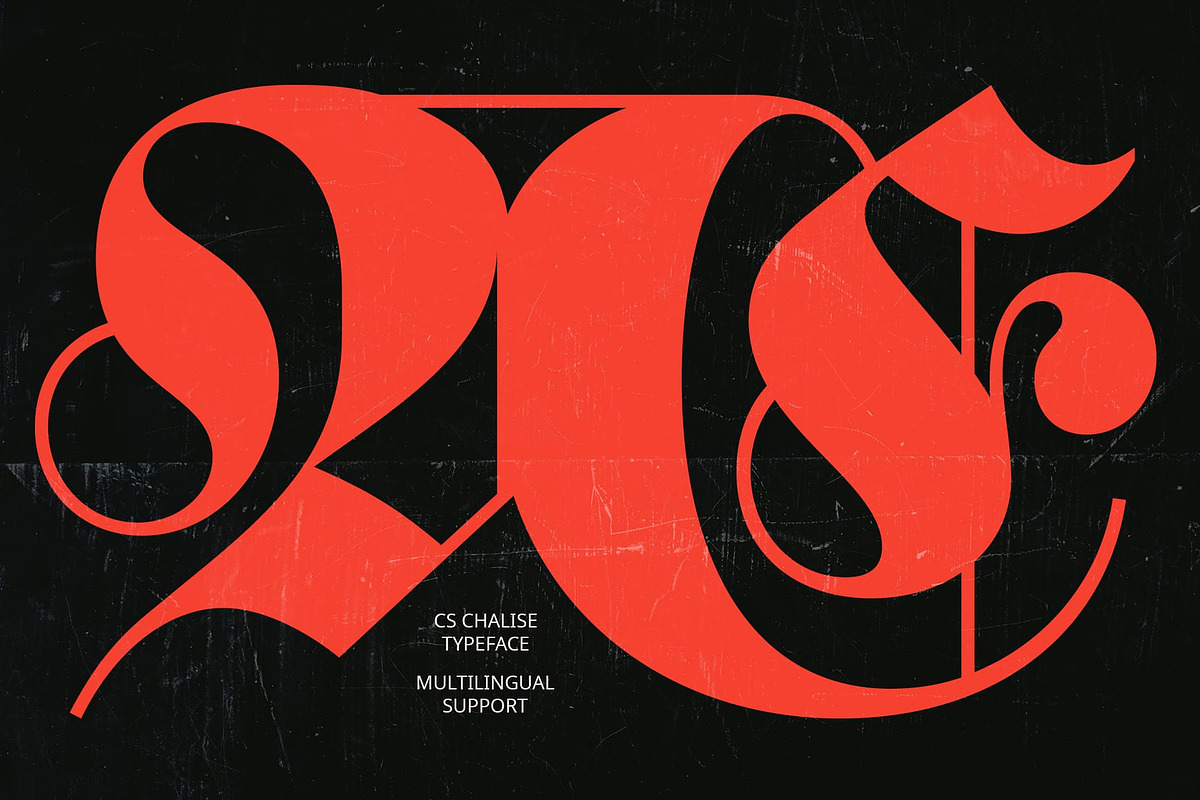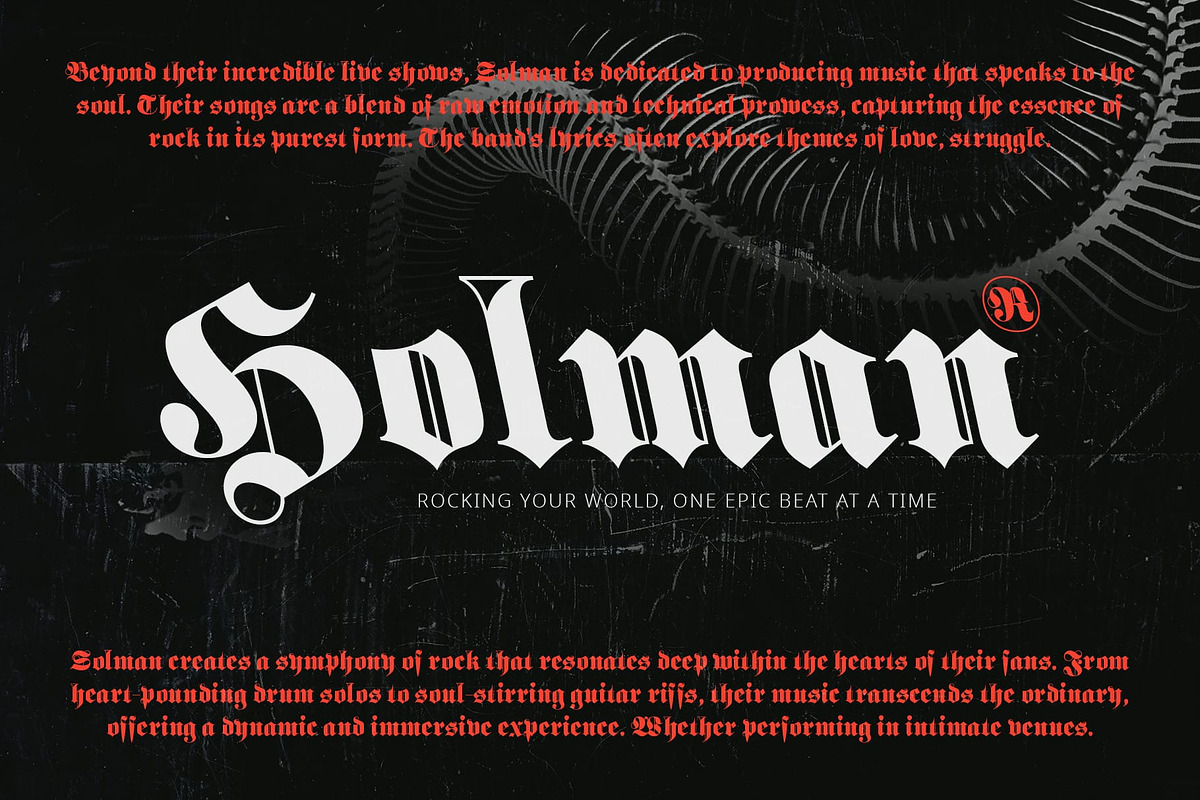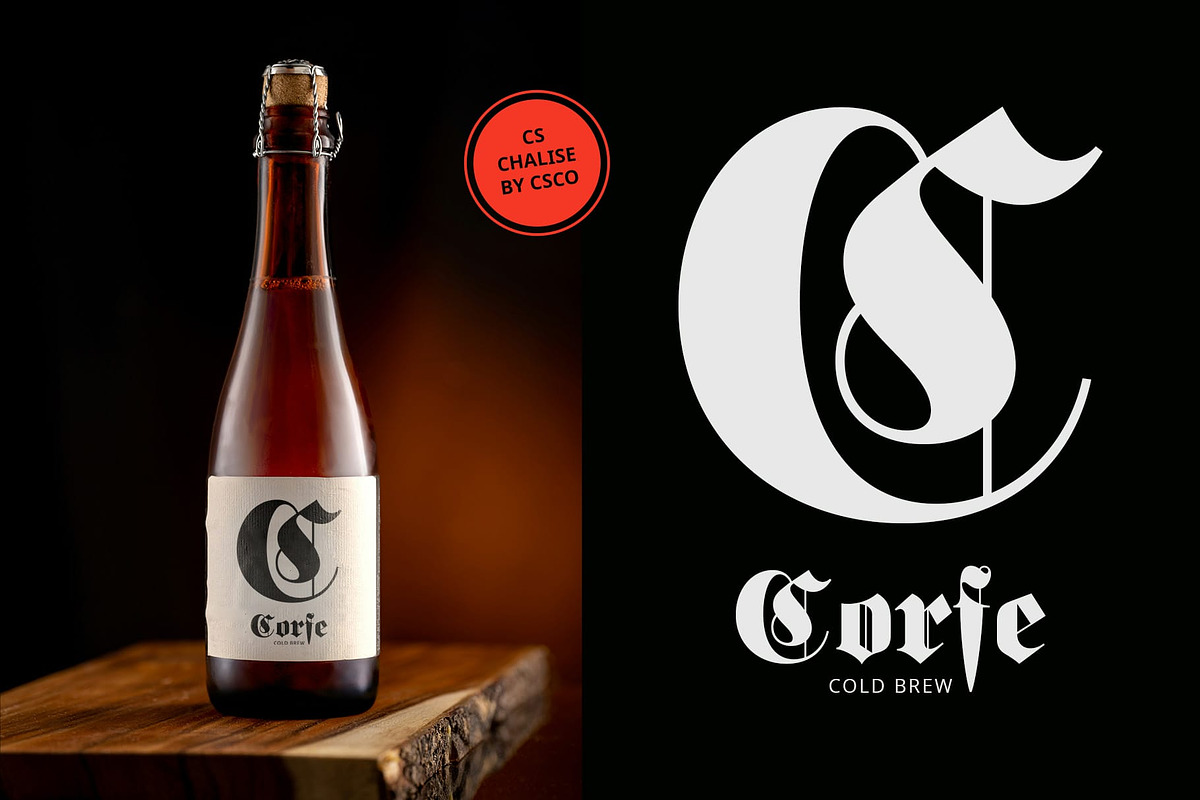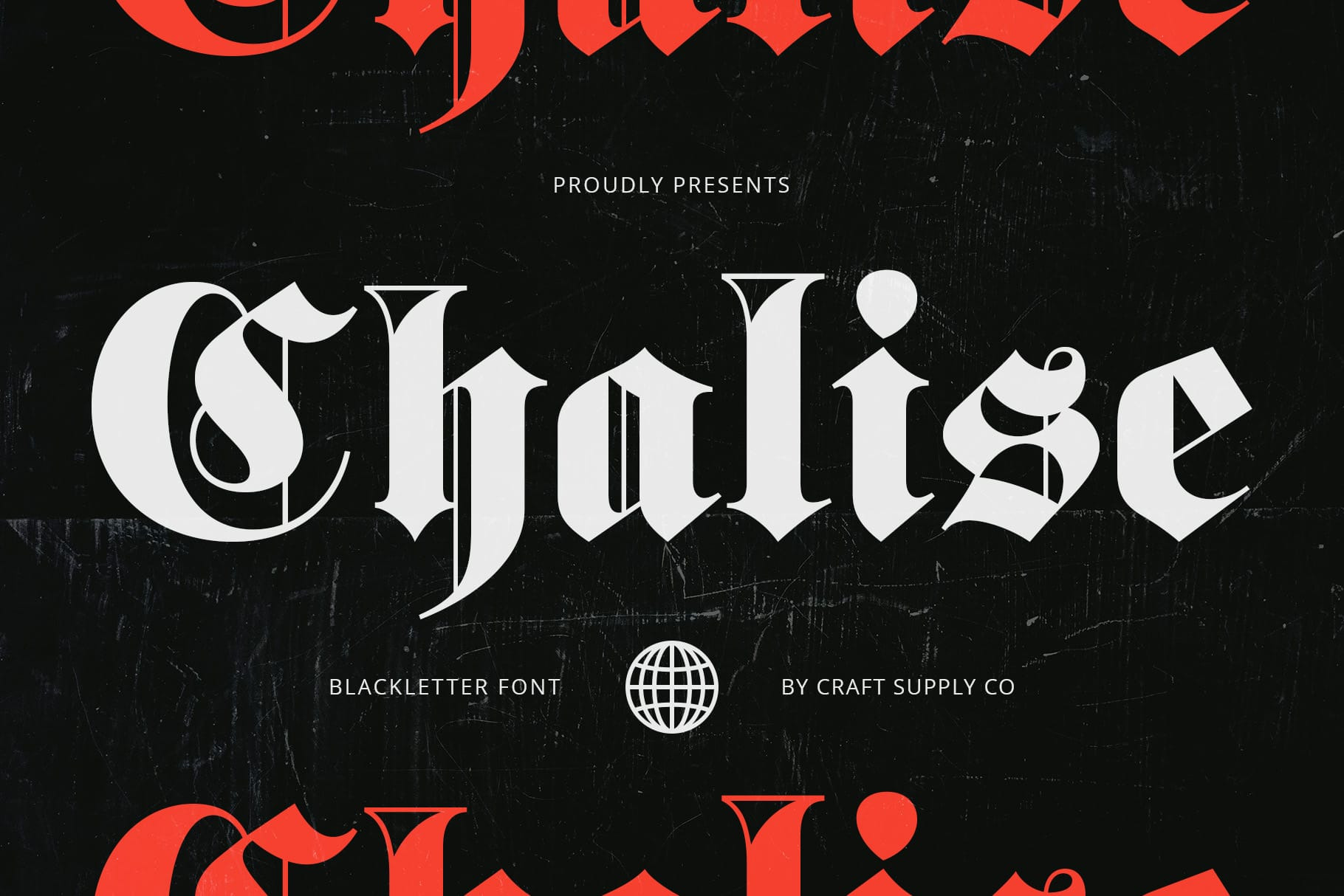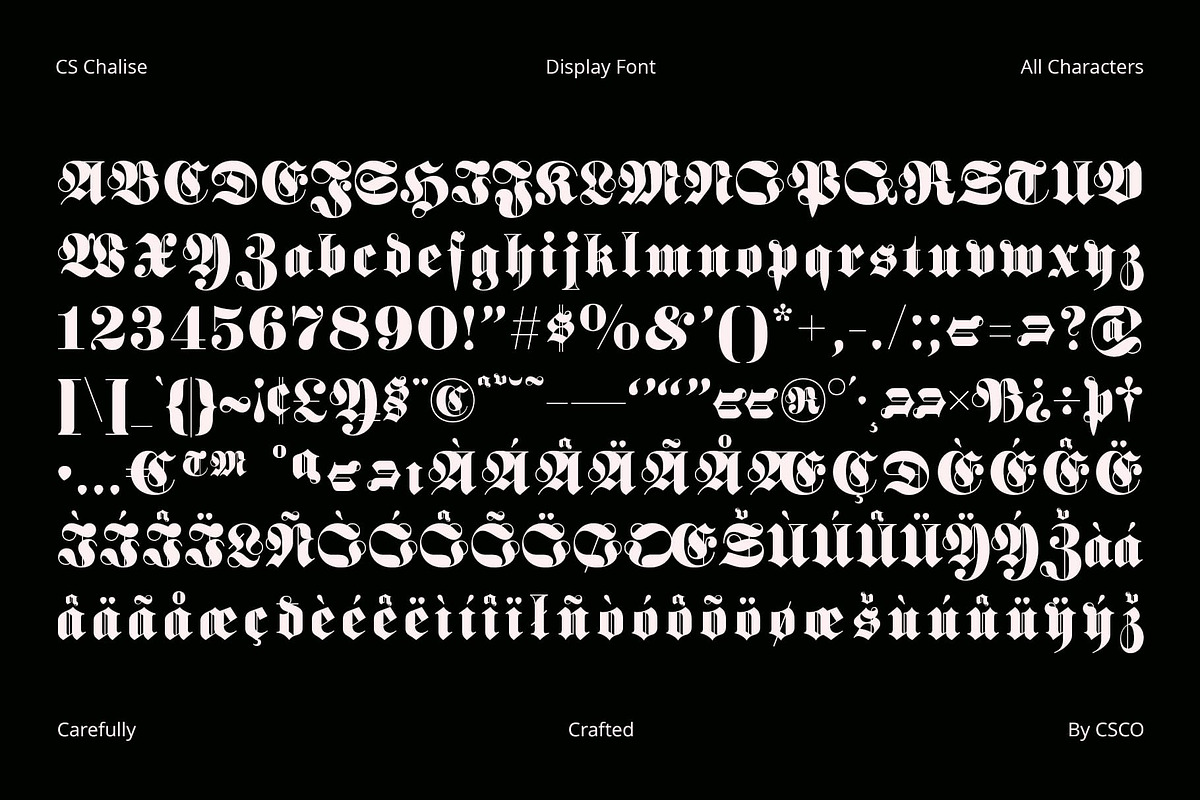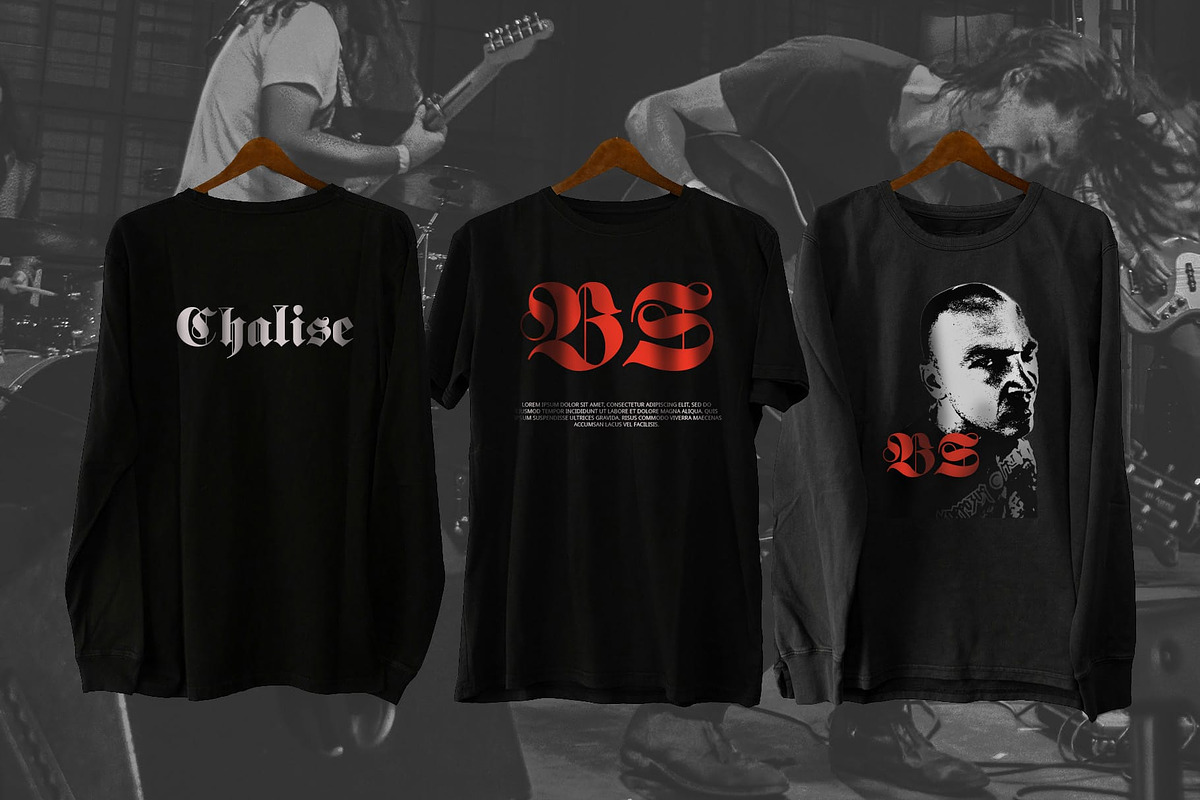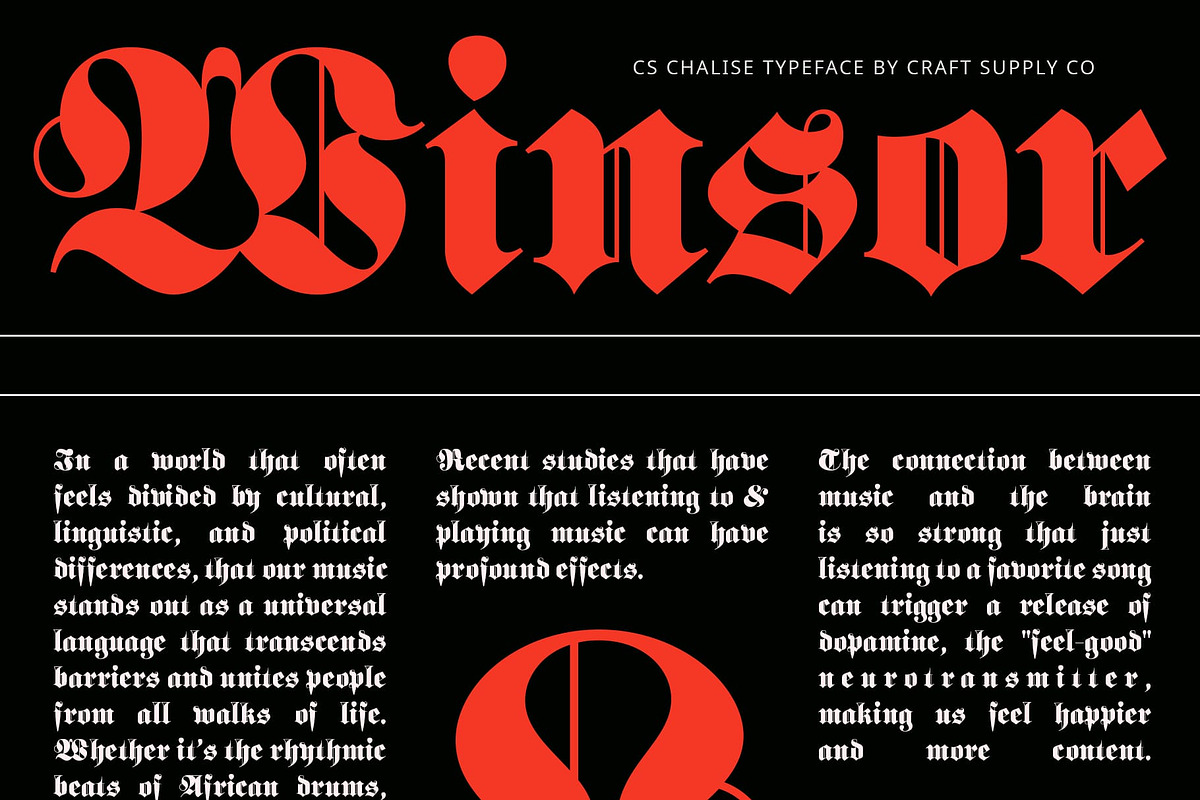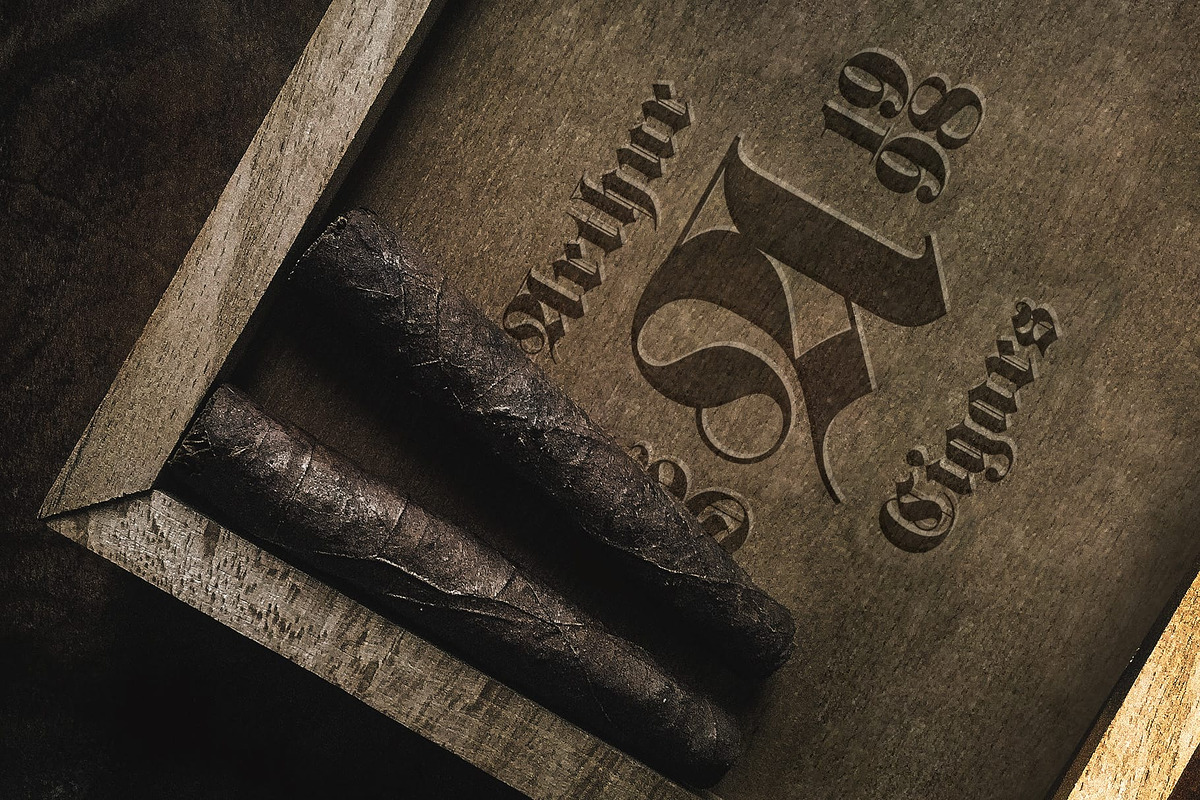
CS Chalise – Blackletter Font
CS Chalise – Blackletter Font: Intricate Elegance with a Historical Touch
Mysterious and Classic Blackletter Style CS Chalise is a captivating display serif font that embraces the rich tradition of blackletter typography. This font features intricate and ornate design elements, merging a classic, mysterious, and ancient aura with a dramatic flair. Its sharp-edged letters and bold, angular lines evoke a strong historical presence, making it ideal for designs that require a deep and atmospheric touch.
Intricate Design Elements The font’s complex details and unconventional structure contribute to its distinctive character. The blackletter style, characterized by its thick strokes and angular shapes, creates a sense of ancient tradition and medieval charm. The intricate design brings a layer of sophistication and historical depth, perfect for capturing attention and conveying a sense of grandeur.
Ideal for Historical and Elegant Projects CS Chalise is perfect for a range of applications that demand a bold and elegant appearance. Whether used in luxury invitations, historical documents, or materials that seek to evoke a traditional and powerful atmosphere, this font adds a unique and captivating touch. Its ability to combine historical richness with a striking visual impact makes it an excellent choice for any project aiming to convey a profound and classic elegance.